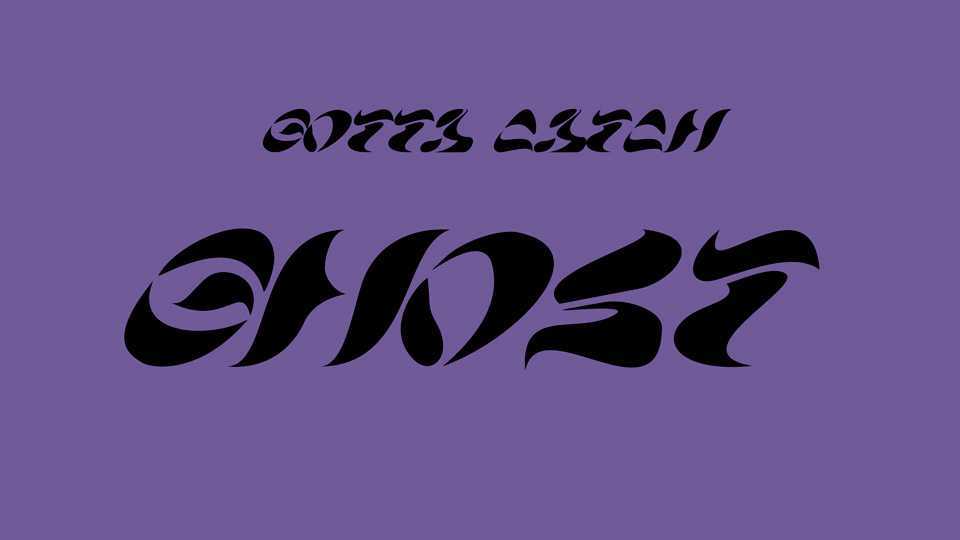
Download Gotta Catch Ghost font, an experimental soft and flowing typeface designed during a type design initiation workshop given by Lucas Descroix in March 2021.
Designer: Julia Koussa